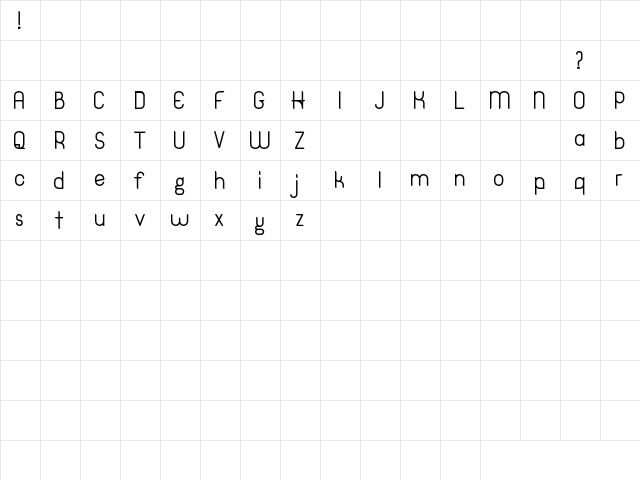
Hinge DEMO Regular
| Designer | Trim Studio |
Design Context for Hinge DEMO Typeface
Hinge DEMO takes a measured approach to typography — its balanced proportions and neutral character make it a reliable workhorse for both digital and print work.